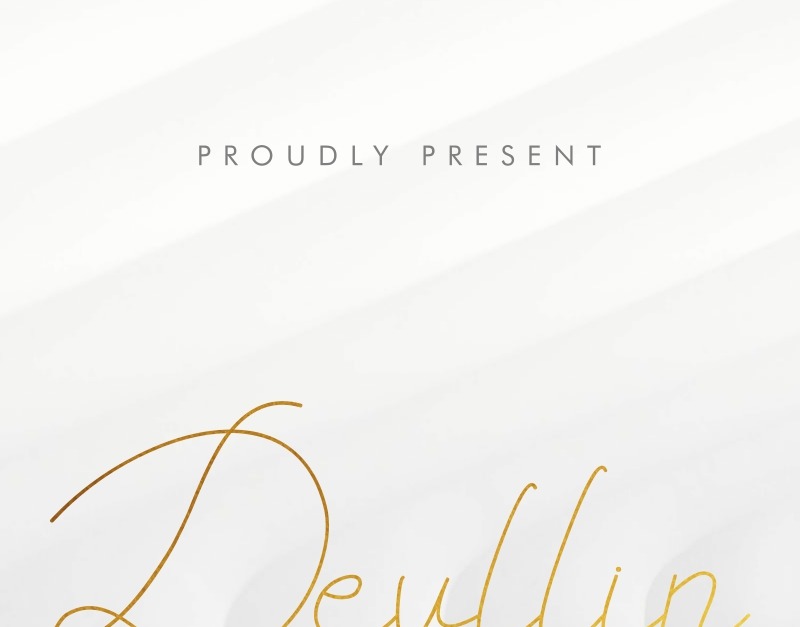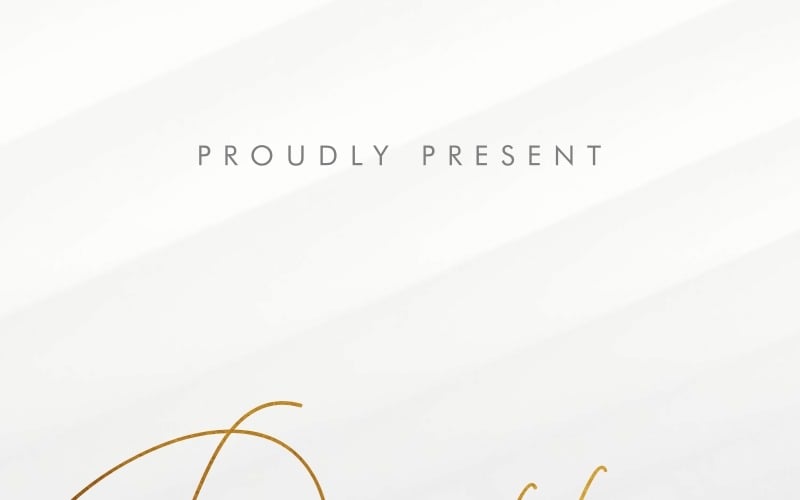
Devllin Font
From our lovely studio, please meet our new handwriting font : Devllin Handwriting Font.
Devllin is made using monoline or one line “pen look” handwriting.
Devllin Handwriting Font has an exclusive style with alternate glyphs. This script font will be great for many purposes : logotype, promotional banner, cover album, social media, quote, food recipe, ebook, etc. Devllin Handwriting Font will be suitable for many professional such as florist, magazine, music, makeup artist, architech, interior designer etc.